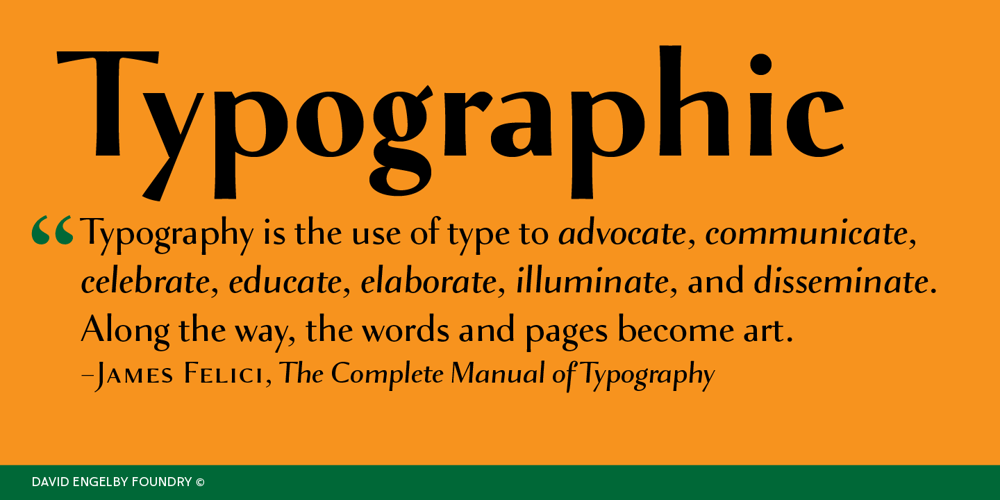
Verger Sans
Verger Sans font
Verger Sans Font Family was designed by David Engelby and published by David Engelby Foundry. Verger Sans contains 4 styles and family package options. The inspiration behind the design of the Verger typeface family (serif & sans version) comes from the classic Golden Type, which was originally crafted by William Morris. Although Verger is inspired by this classic typeface, it has several modern, expressive and distinctive styles of its own, especially in the design of its italic versions. This is the sans version of Verger.